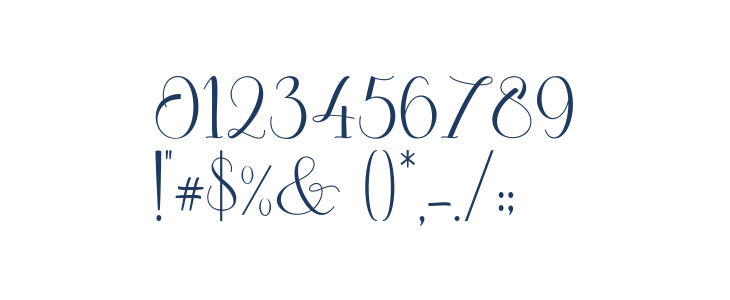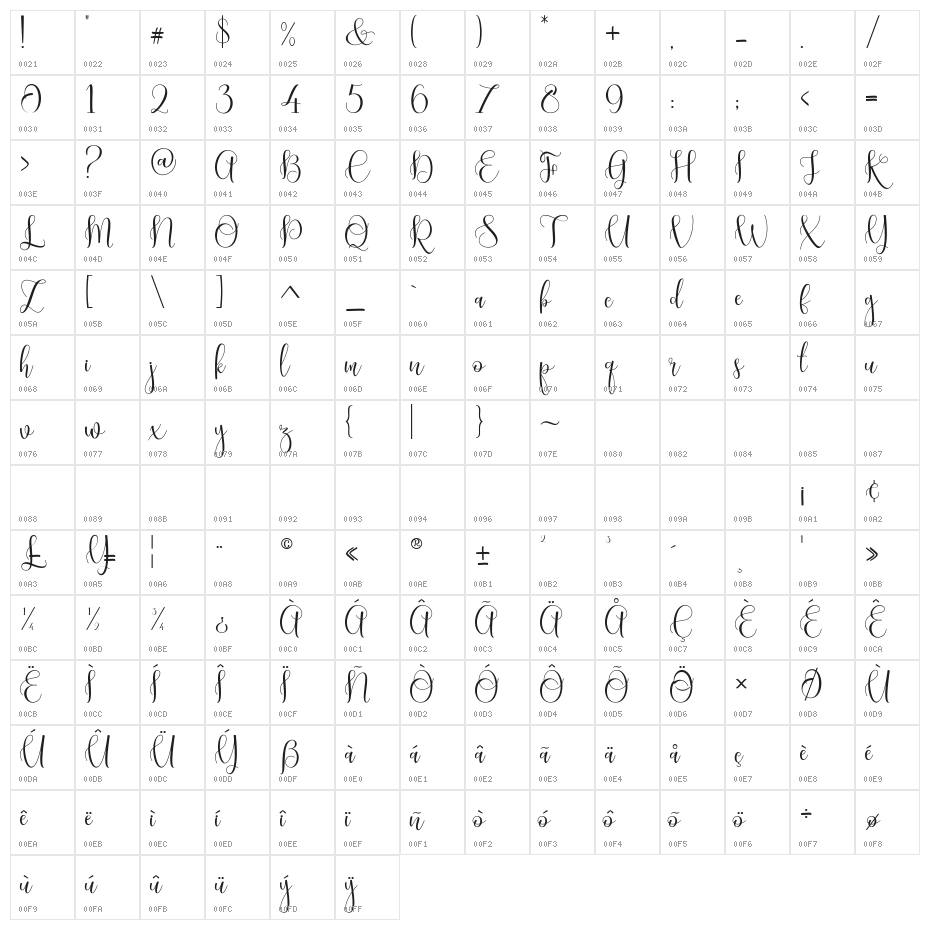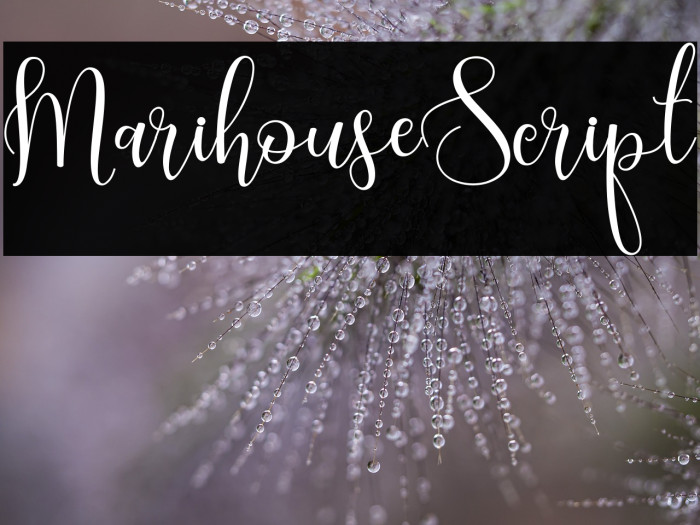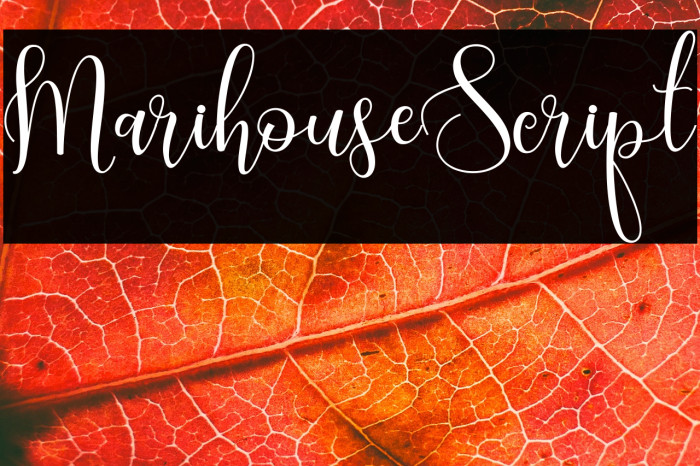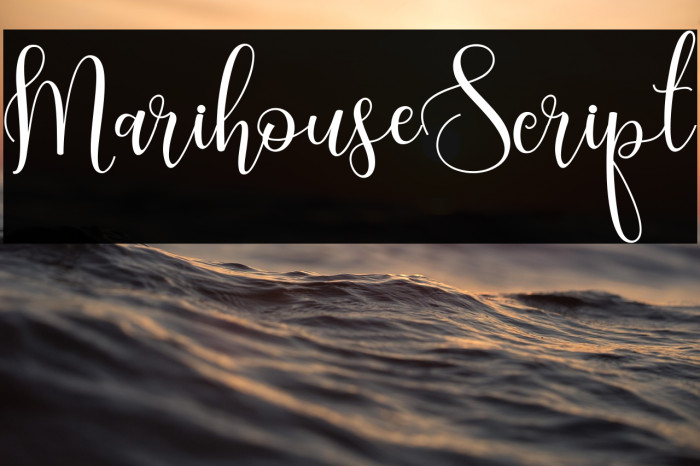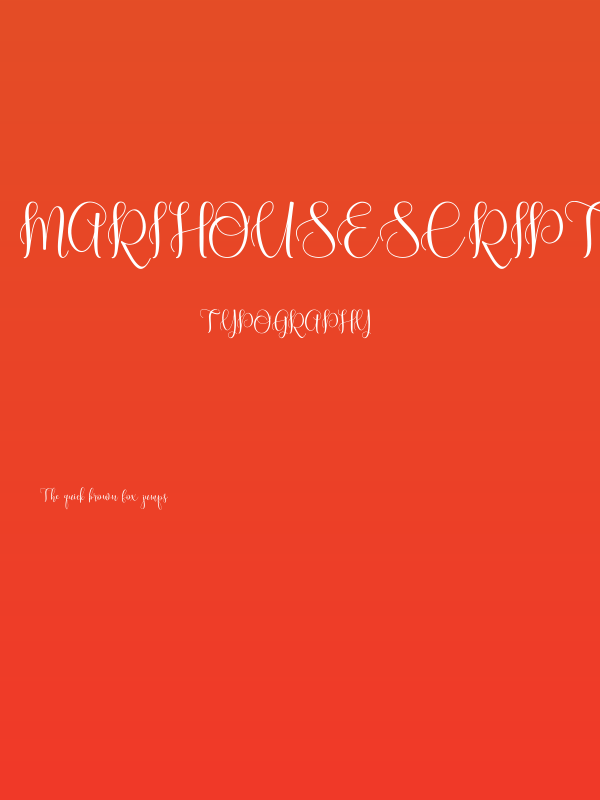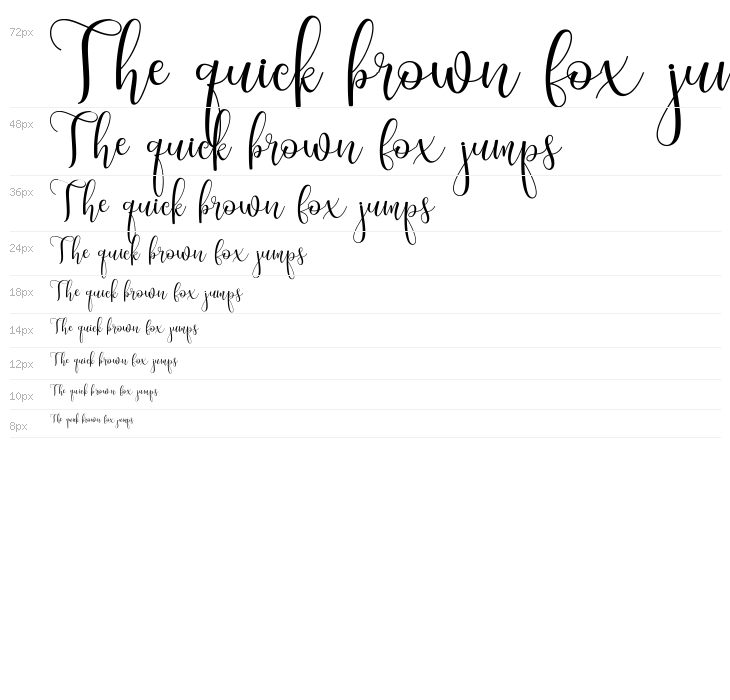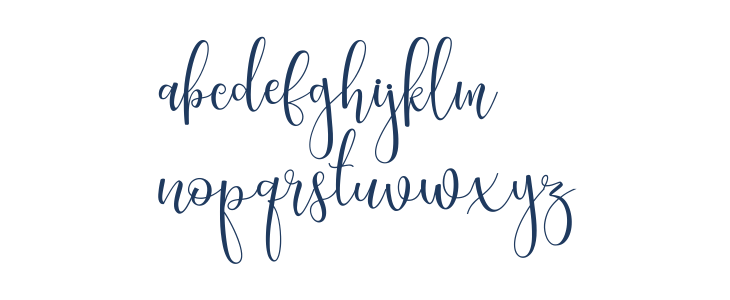
MarihouseScript Font
MarihouseScript Description
This elegant script font features a flowing, cursive style with intricate loops and swashes, giving it a sophisticated and artistic appearance. The uppercase letters are characterized by their tall, slender forms and elaborate flourishes, while the lowercase letters maintain a consistent, graceful flow. The numerals are uniquely styled, maintaining the font's overall decorative theme. Special characters are designed with similar attention to detail, enhancing the font's cohesive look. This font is perfect for projects that require a touch of elegance and creativity.
| Use Case | Logos, Invitations, Decorative text |
| Proposed Projects | Ideal for wedding invitations, greeting cards, branding, and elegant logos. |